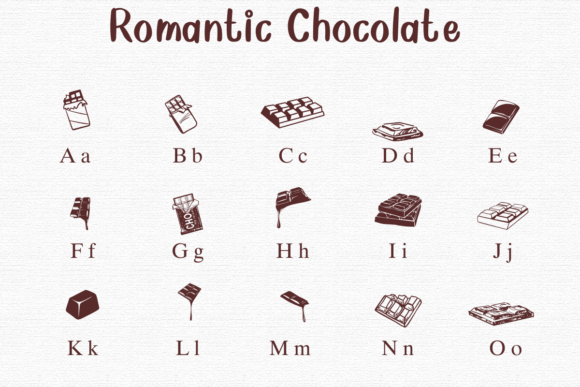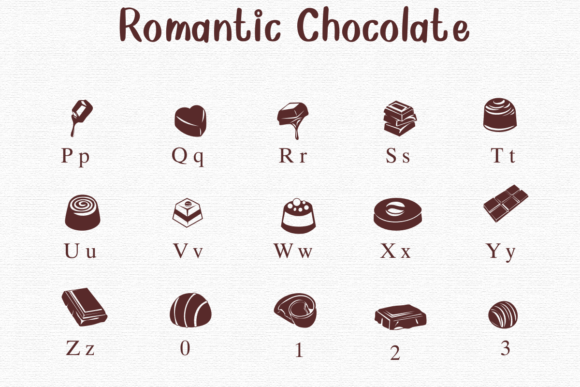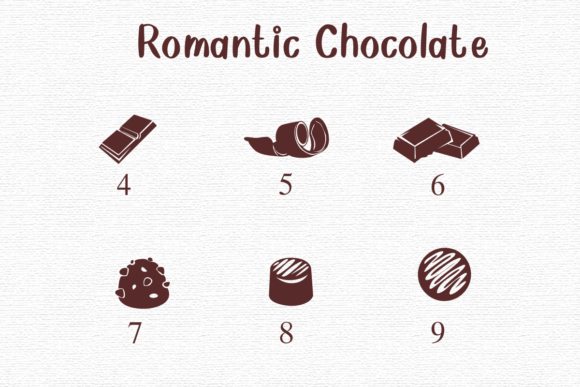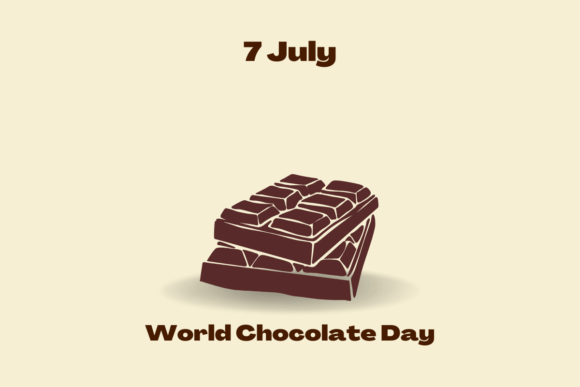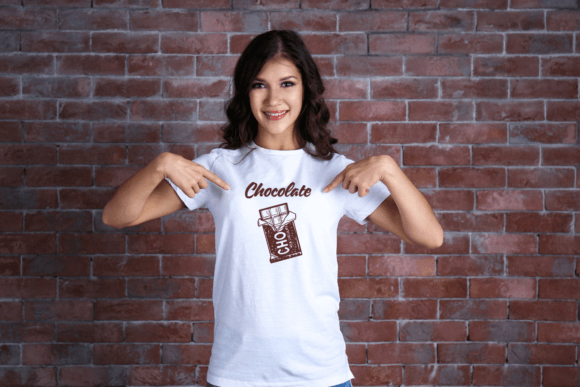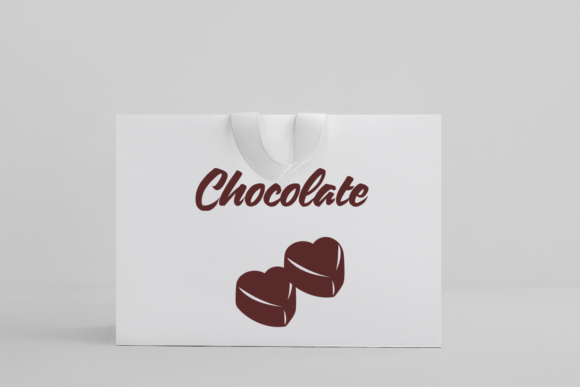
Introduction to Romantic Chocolate Font
Imagine you’re sitting at your desk, surrounded by scraps of paper, glue sticks, and colorful markers. The clock is ticking, but you’re determined to create the perfect invitation for your best friend’s wedding. The pressure is on, but then you stumble upon the perfect font – the Romantic Chocolate Font. Its sweet, whimsical design transports you to a world of romance and joy, making your creative project truly special.
As a designer, you know that the right font can make all the difference in a project. That’s why we’re excited to share with you the Romantic Chocolate Font, a high-quality dingbats font that’s perfect for any creative project. With its transparent background and free download option, you can easily incorporate this design resource into your next DIY craft, wedding invitation, or logo design.
Key Features of Romantic Chocolate Font
- Unique, hand-drawn design perfect for creative projects requiring a touch of elegance and whimsy
- High-quality font with transparent background, ideal for digital designs and backgrounds
- Perfect for adding a romantic and indulgent touch to wedding invitations, food labels, and other creative projects
Honest Review: Romantic Chocolate Font
I recently stumbled upon the Romantic Chocolate Font, and I’m excited to share my thoughts on it. As a designer, I’m always on the lookout for high-quality fonts to enhance my creative projects.
What works well about the Romantic Chocolate Font is its unique and whimsical design. The font is perfect for adding a touch of romance and elegance to your projects, whether it’s a wedding invitation, a love letter, or a romantic dinner menu. The font is also available for free download, making it a great resource for designers on a budget.
- ✨ Unique and whimsical design
- ✨ Perfect for adding a touch of romance and elegance to your projects
However, there are a few limitations to consider. The font is only available in a transparent background, which may not be suitable for all projects. Additionally, the font may not be as versatile as other fonts, and it’s best suited for specific creative projects.
- ⚠️ Only available in a transparent background
- ⚠️ May not be as versatile as other fonts
Overall, I’m impressed with the Romantic Chocolate Font. It’s a great design resource for designers who are looking for a unique and elegant font to add to their creative projects.
Romantic Chocolate Font
The Romantic Chocolate Font is perfect for projects that require a touch of romance and elegance. Some common use cases include:
- Valentine’s Day cards and gifts
- Baby shower invitations and decorations
Yes, the Romantic Chocolate Font is designed to be scalable and suitable for large-scale designs. With its high-quality design and smooth lines, it can be used effectively in posters, billboards, or other creative projects where a clear and readable font is essential.